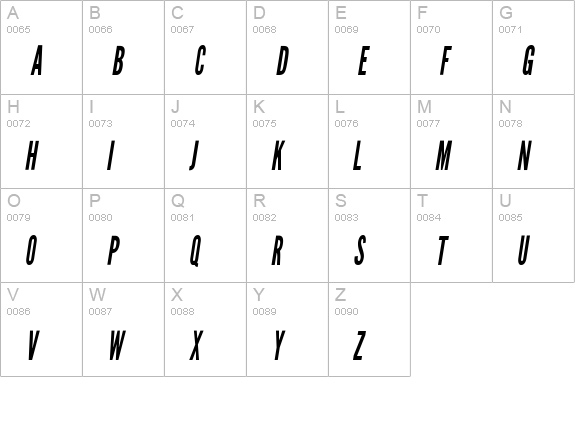
Warsaw Gothic Condensed OBlique Font Details
Warsaw Gothic Condensed OBlique is a distinctive, condensed-width, italic variant in the Warsaw typeface family \xE2\x80\x94 well suited to design and typography projects.
Introducing Warsaw Gothic Condensed Oblique, a captivating font that effortlessly combines the boldness of Gothic letterforms with a condensed silhouette. This unique typeface exudes an air of mystery and sophistication, making it the perfect choice for projects that demand a touch of dramatic elegance. With its slanted and slightly distorted letterforms, Warsaw Gothic Condensed Oblique adds a dynamic and edgy flair to any design. Each character is meticulously crafted to maintain legibility while still conveying a sense of intrigue and individuality. The sharp angles and subtle curves create a harmonious balance, resulting in a font that is both visually striking and exceptionally versatile. But the best part? Warsaw Gothic Condensed Oblique is available for free! That's right, this extraordinary font can be yours at no cost, allowing you to enhance your creative endeavors without breaking the bank. Simply head over to FontsMarket.com, where you can download this font with just a few clicks. Whether you're designing a logo, creating eye-catching headlines, or crafting a powerful branding message, Warsaw Gothic Condensed Oblique is sure to make a lasting impression. Its commanding presence and distinctive aesthetic will elevate your designs to new heights, ensuring that they stand out from the crowd. Don't miss out on the opportunity to add this stunning font to your collection. Download Warsaw Gothic Condensed Oblique today and let your creativity soar. Remember, it's freely available at FontsMarket.com, so you can start exploring its limitless possibilities without any limitations.